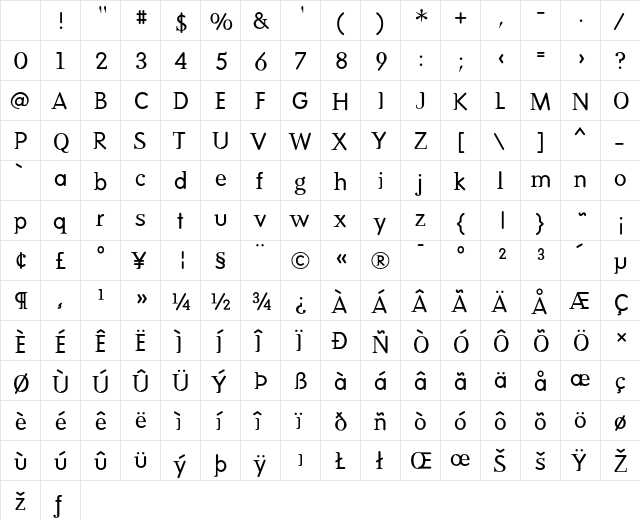
Complete DeadHistory Roman glyph index. Displaying only characters natively supported by DeadHistory Roman font.
DeadHistory is a composed and adaptable typeface that performs quietly and consistently across a wide range of design contexts.
Who designed the DeadHistory Roman font?
This font was published by Emigre Graphics, Designed by P. Scott Makela. Check the technical specs section for copyright and designer details.